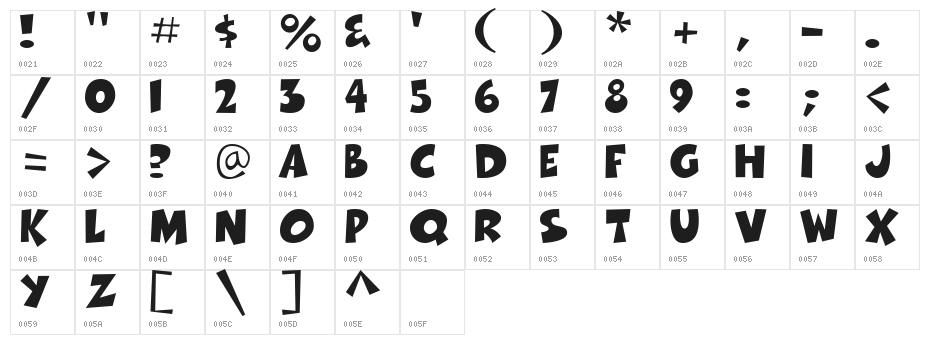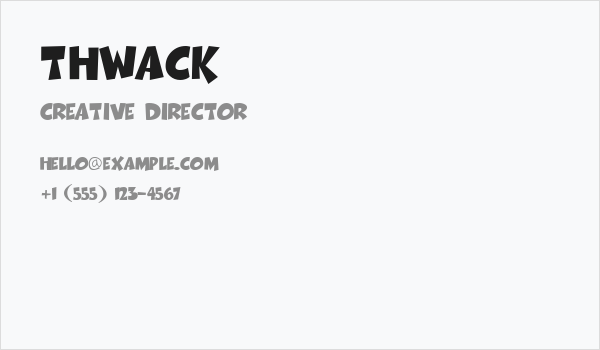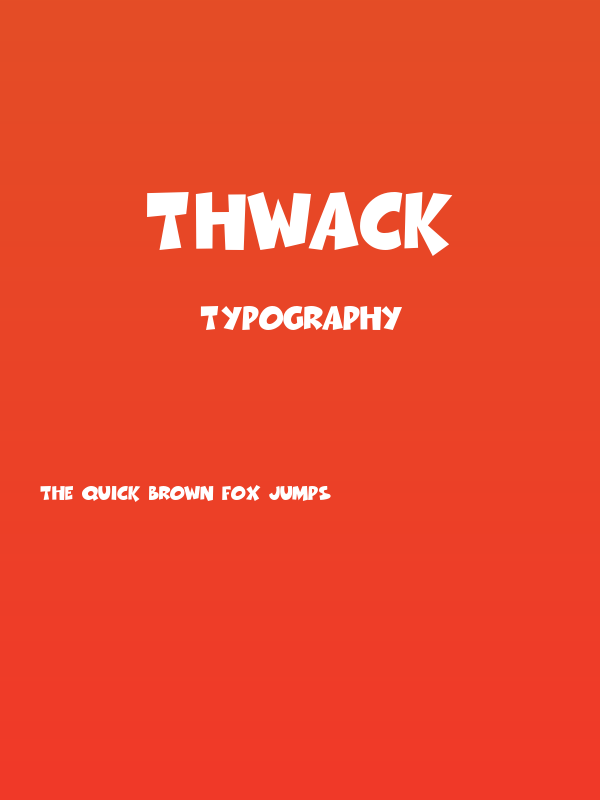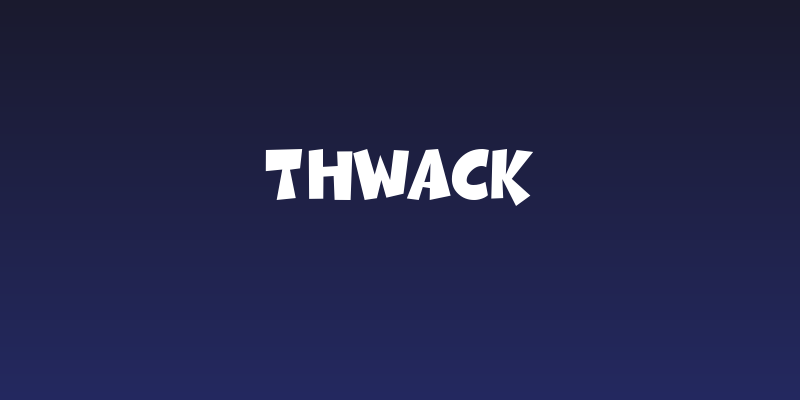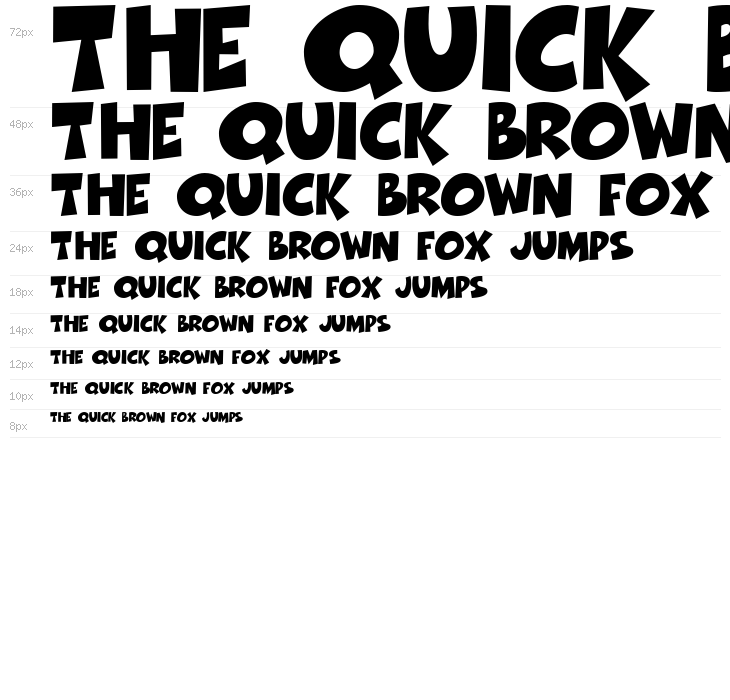
Thwack Font
Thwack Description
This font features a bold and playful design with exaggerated, angular shapes that give it a dynamic and energetic appearance. The letters are thick and robust, with a slightly irregular form that adds a sense of movement and fun. The uppercase and lowercase characters maintain a consistent style, with the numbers and special characters following suit. This font is highly legible and makes a strong visual impact, making it suitable for attention-grabbing designs.
| Overall Style | Playful, Energetic |
| Proposed Projects | Ideal for comic book titles, children's book covers, playful branding, and eye-catching posters. |